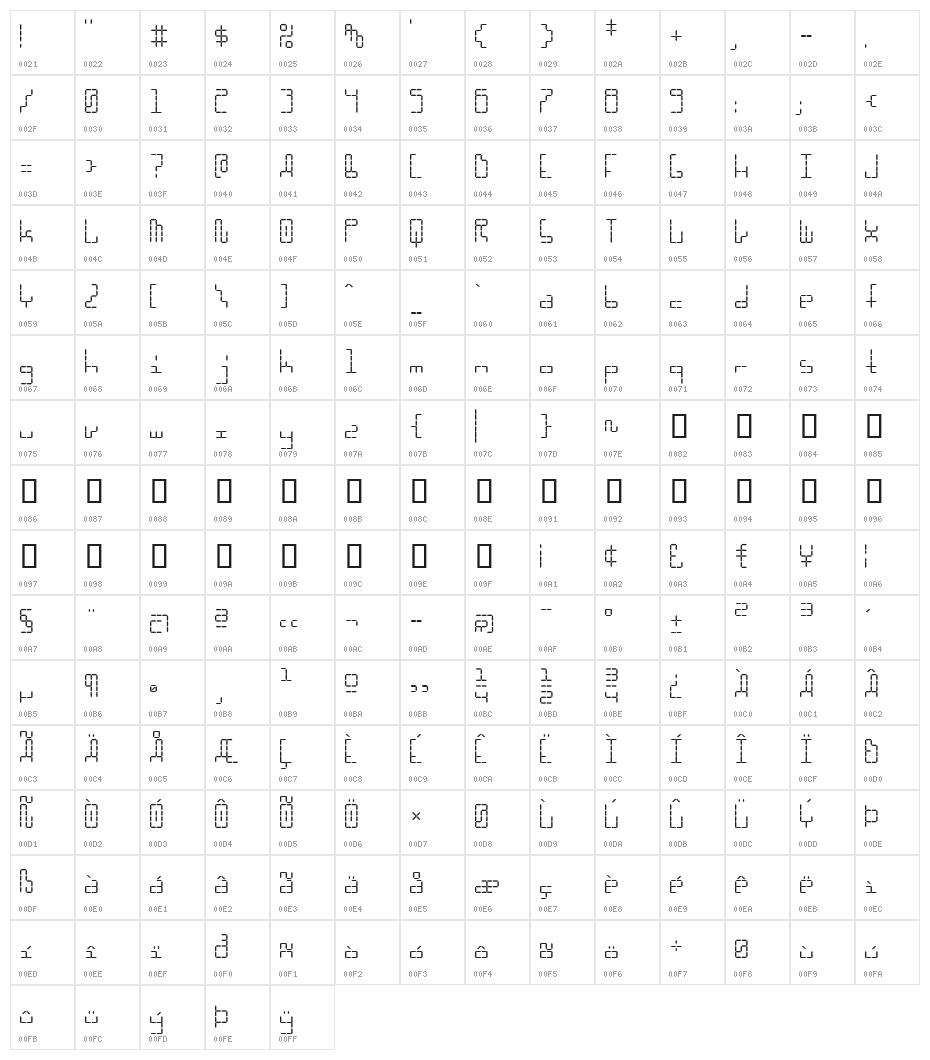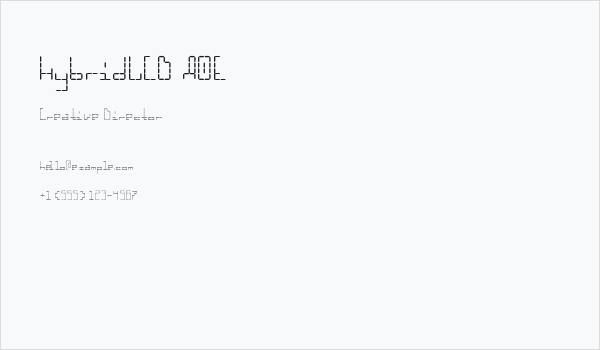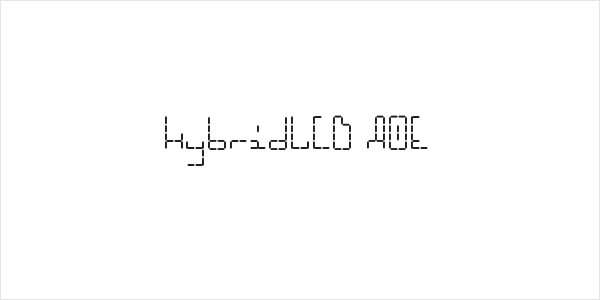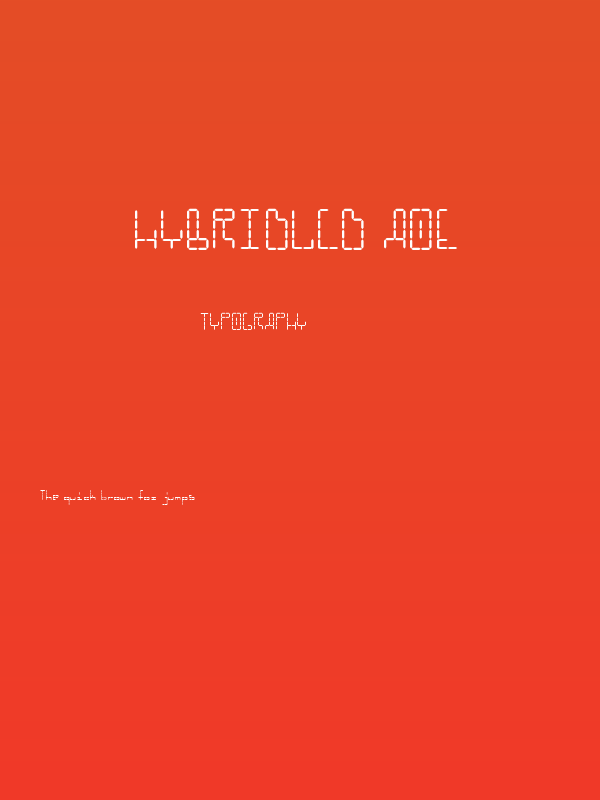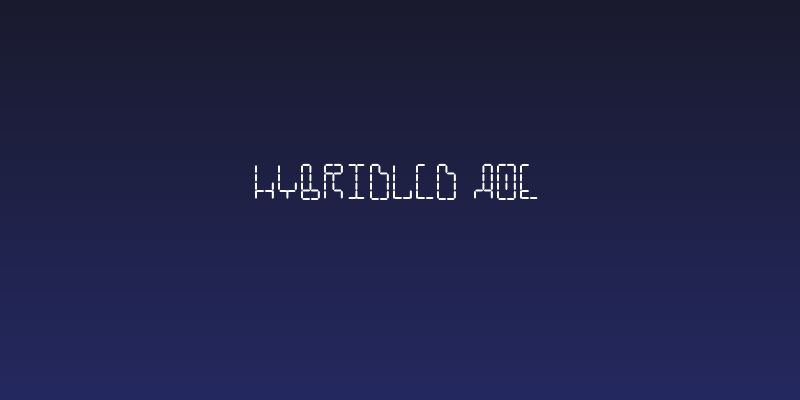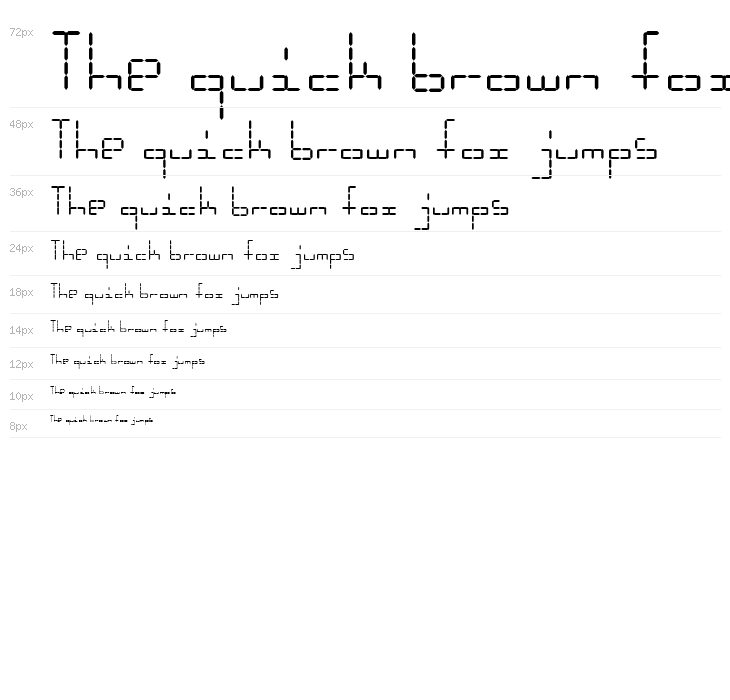
HybridLCD AOE Font
HybridLCD AOE Description
This font features a unique, digital-inspired design reminiscent of LCD displays. Each character is constructed from a series of connected segments, creating a geometric and modular appearance. The uppercase and lowercase letters maintain a consistent style, with rounded edges and uniform spacing. Numbers and special characters are crafted with the same segmented approach, ensuring a cohesive look across all glyphs. The font's structure is both modern and technical, making it ideal for digital-themed projects.
Use CaseHeadlines, Logos, Digital displays
Proposed ProjectsIdeal for digital displays, tech branding, futuristic designs, and electronic-themed projects.